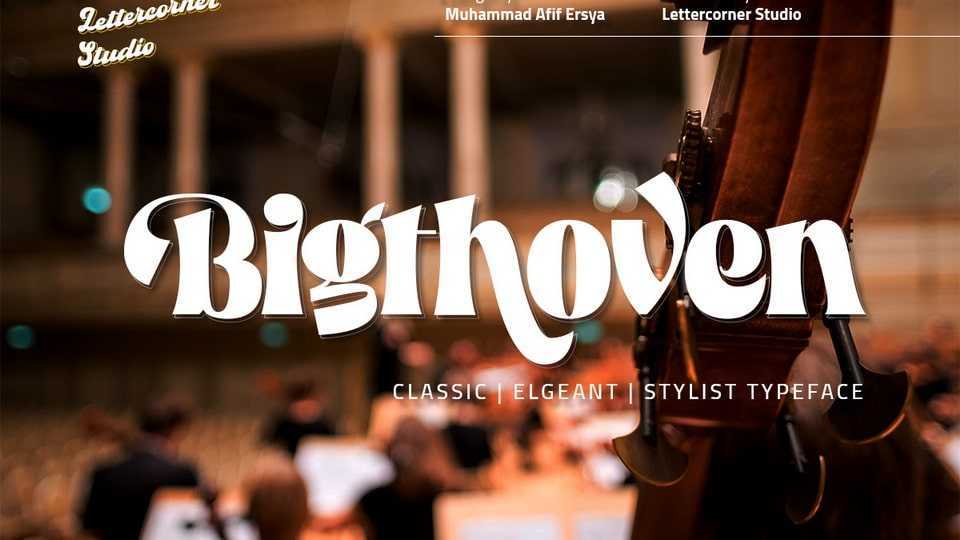
Download Bigthoven font, a sophisticated display typeface with high contrast and unique letterforms. Bold and stylish, Bigthoven is the perfect match for magazines, fashion brands, advertising and headlines.
Designer: Mevstory Studio